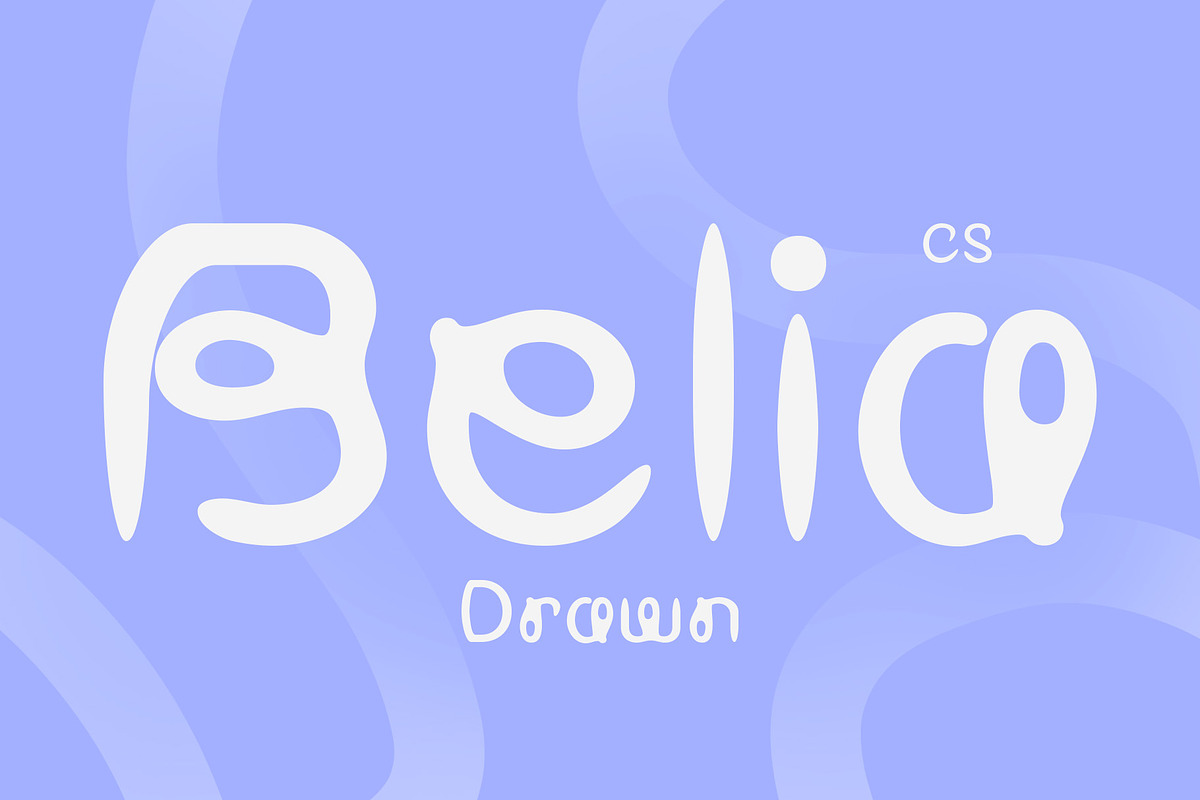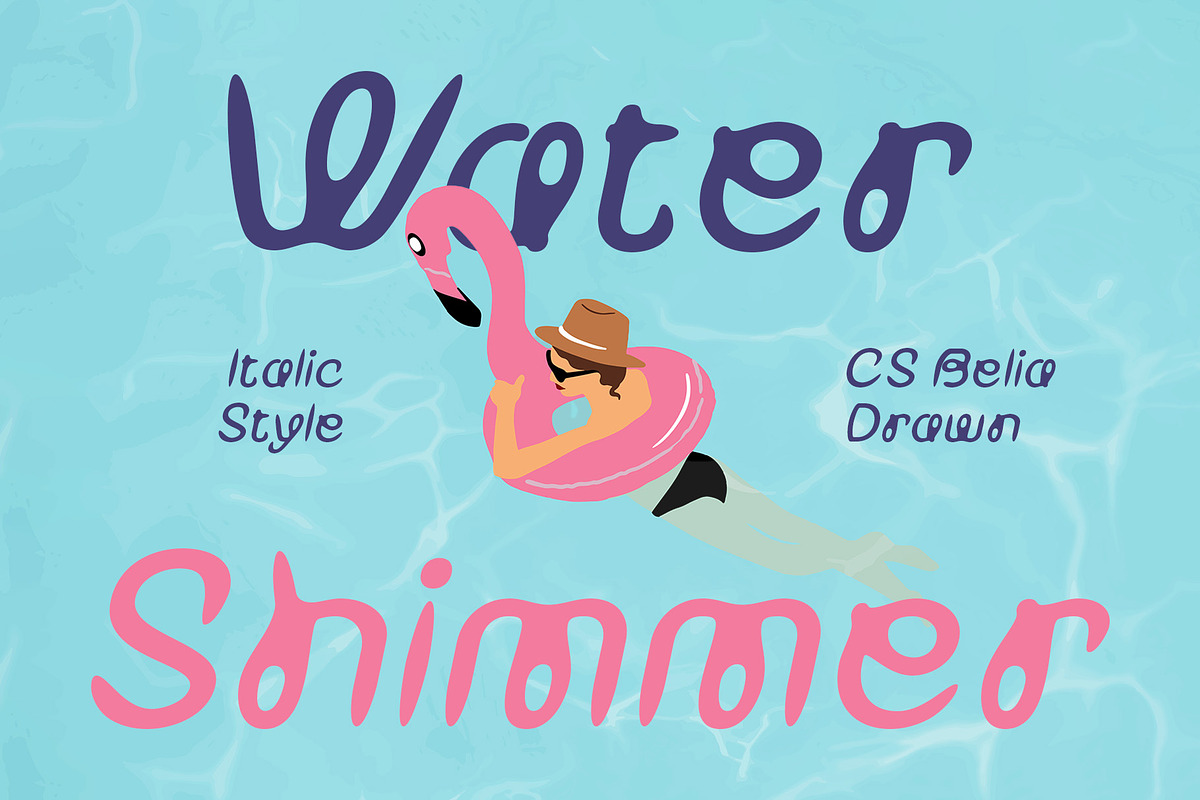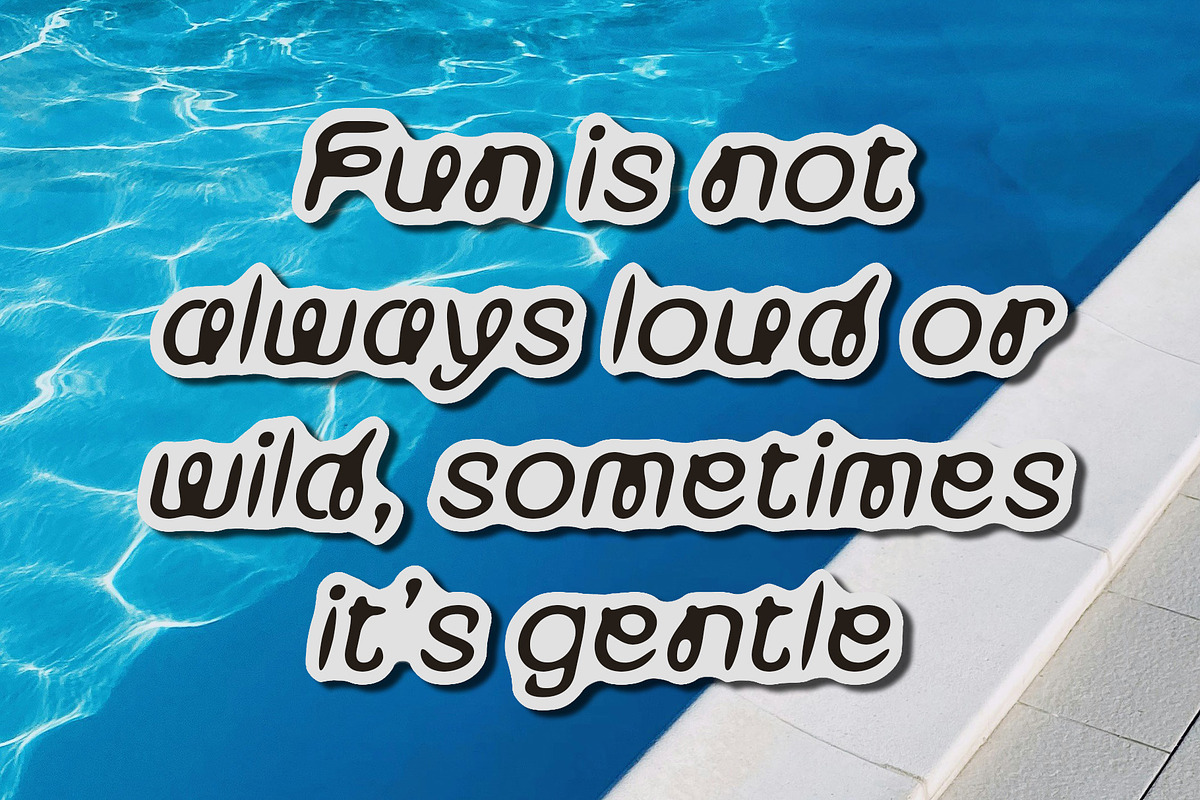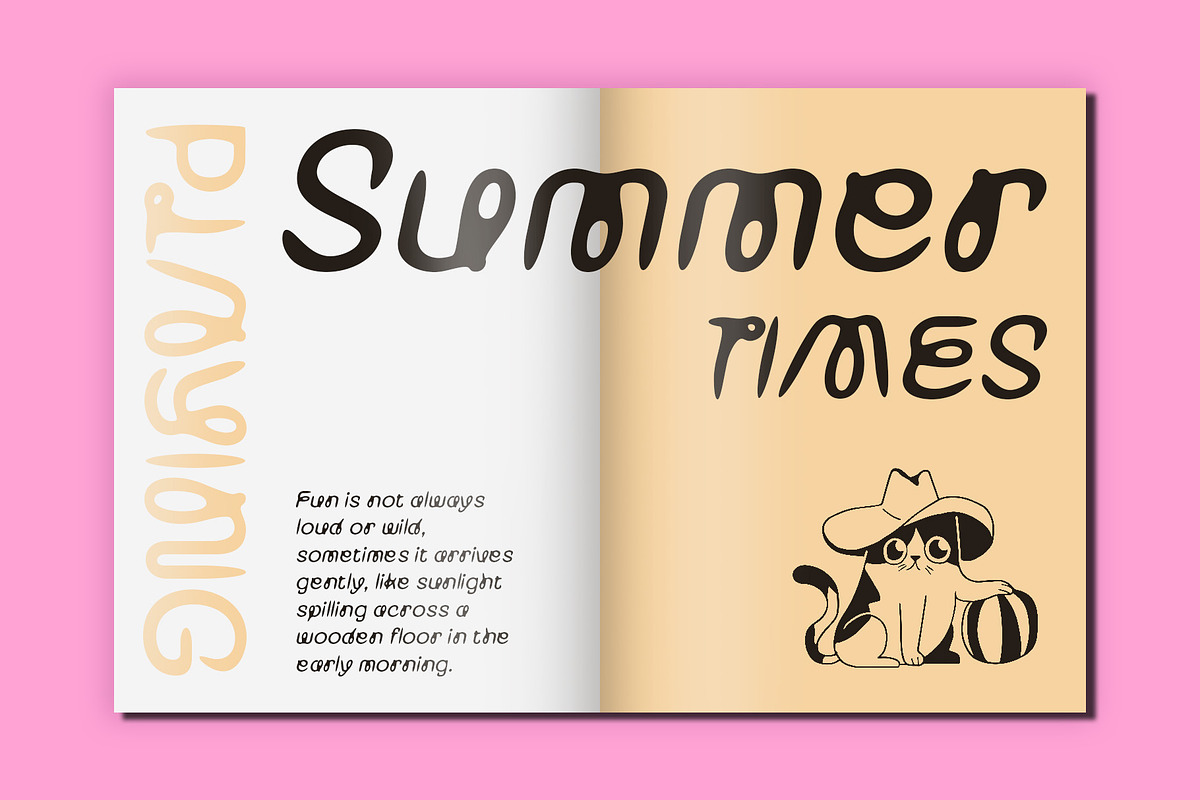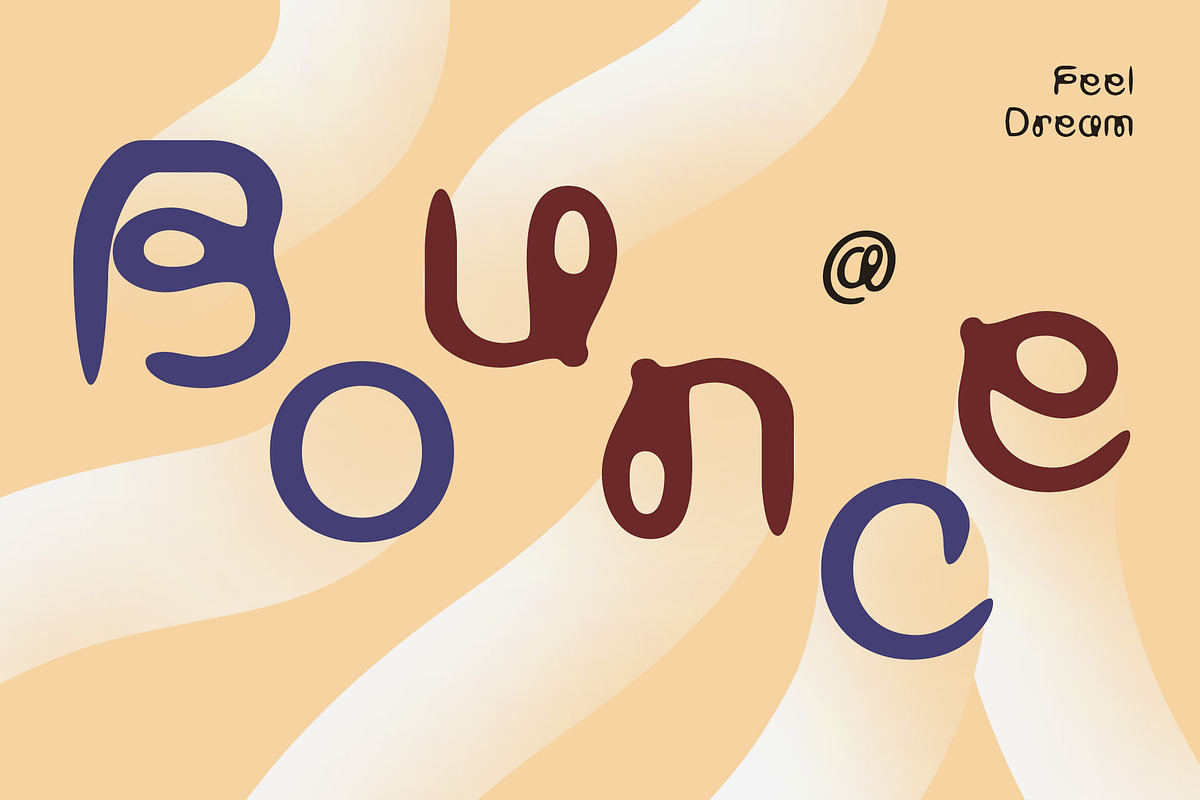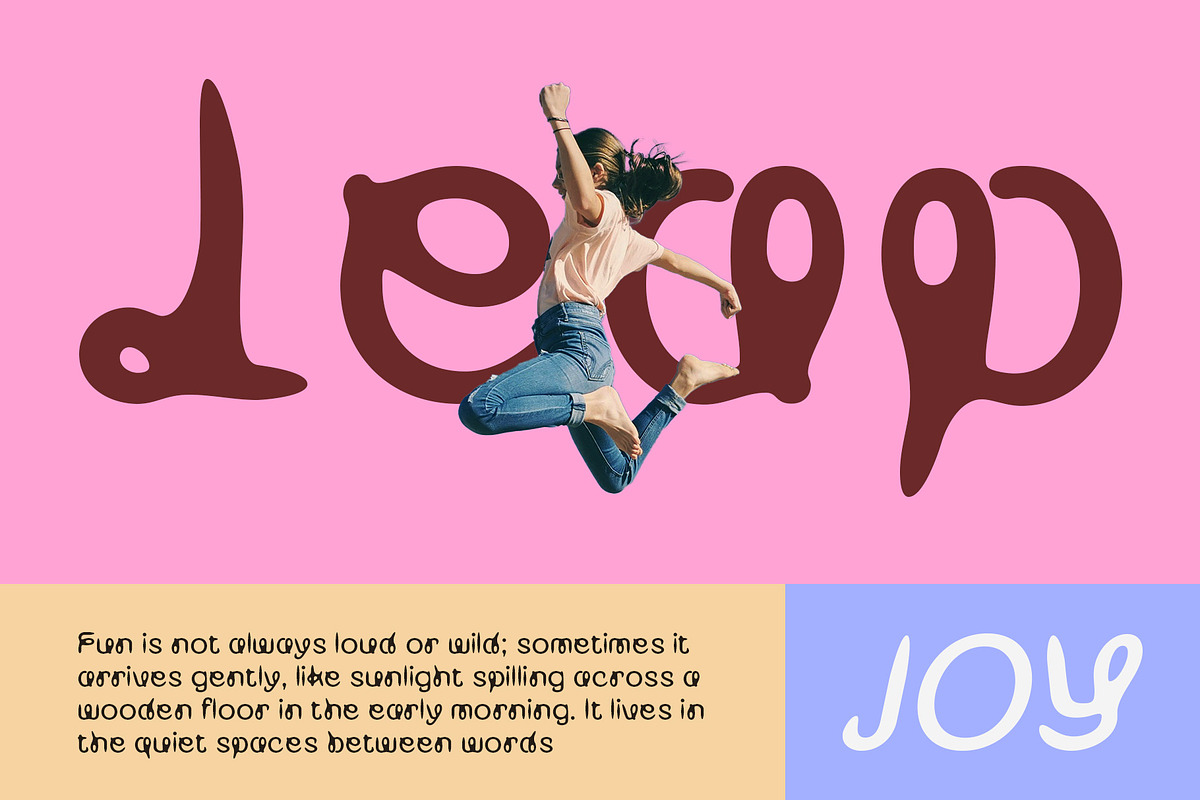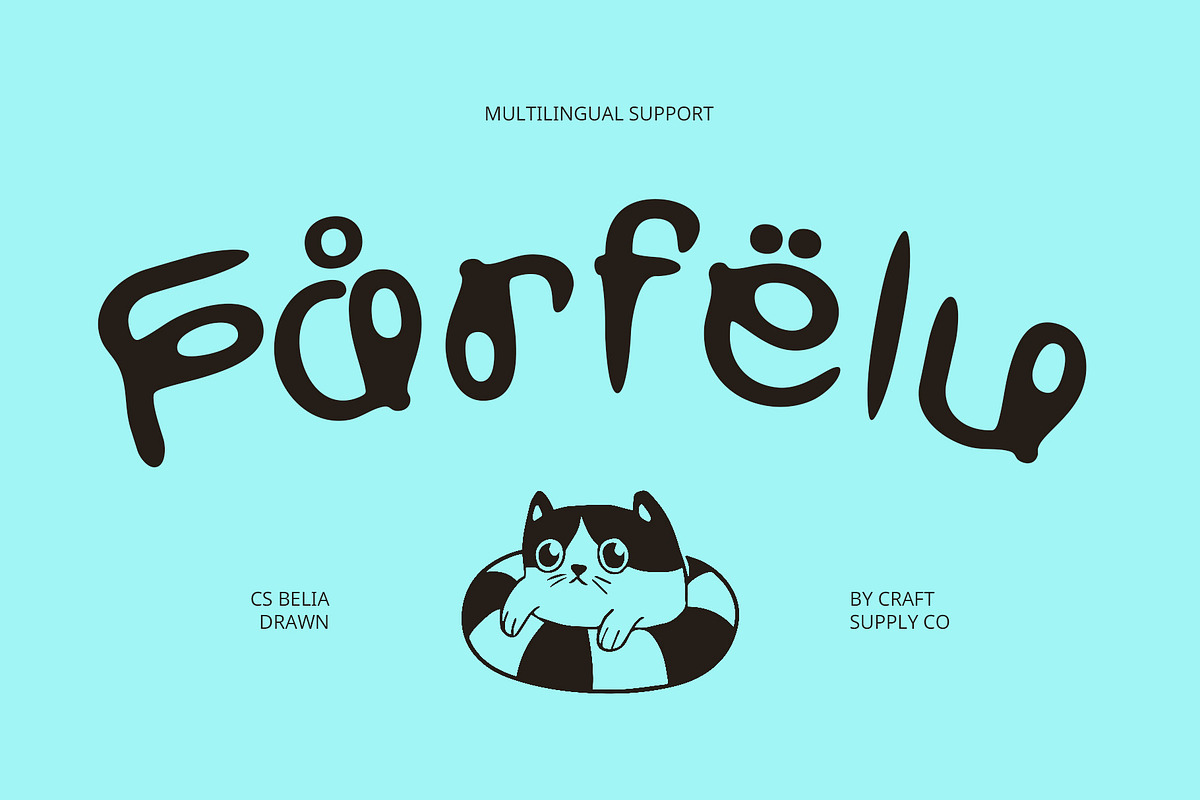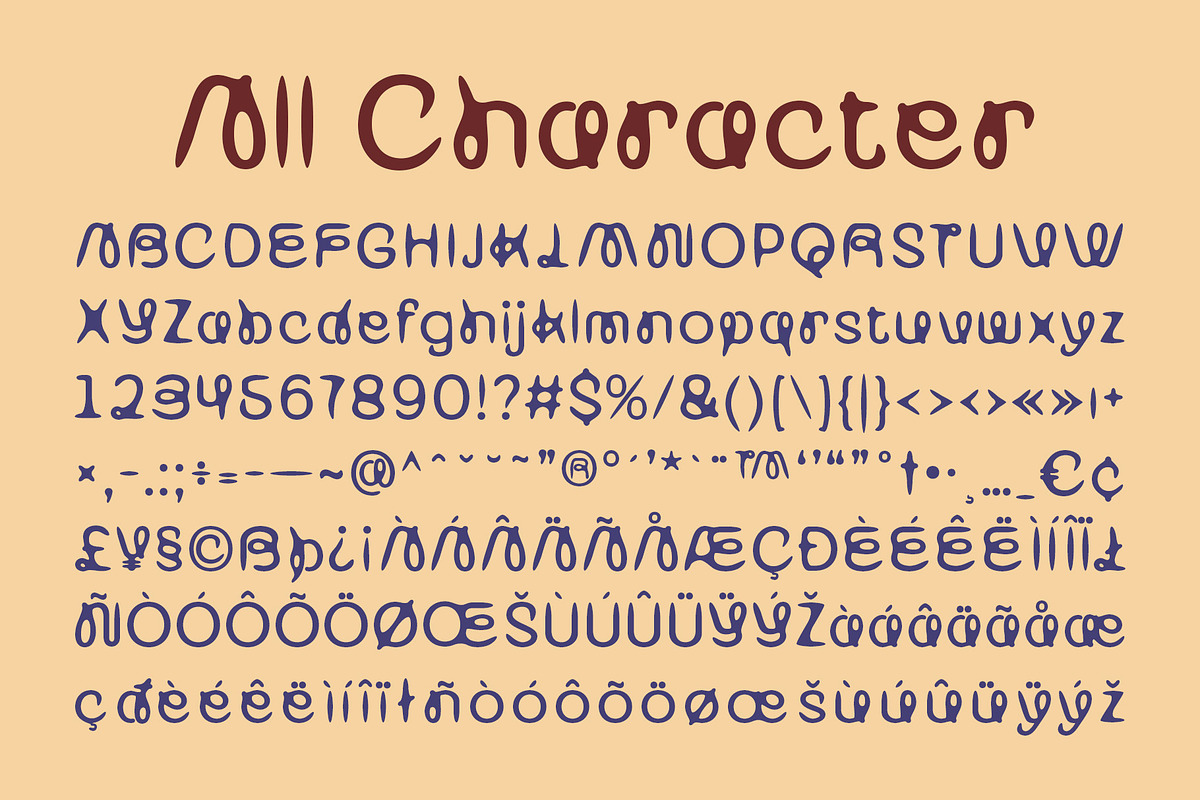
CS Belia Drawn
CS Belia Drawn – A Playful Fusion of Modern Funk and Handcrafted Charm
Curved and Swirling Shapes with Funky Appeal CS Belia Drawn is a modern sans-serif display font that stands out with its curvy, swirling letterforms and bold personality. Its shapes bring a fresh sense of motion and energy, offering a funky, cheerful impression that’s both cute and expressive. The font balances contemporary structure with a playful spirit, making it ideal for eye-catching, creative work.
Drawn Effect Adds Artistic Personality The drawn effect introduces a soft, organic texture that enhances its handcrafted aesthetic. This layer of imperfection and detail adds warmth and originality, giving the font a more personal, artisanal presence. It feels human and imaginative—perfect for projects that thrive on individuality and emotion.
Expressive and Youthful Visual Energy This artistic flair font radiates joy and character. Its dynamic curves and hand-drawn vibe create a striking identity that’s ideal for bold headlines, funky logos, and expressive display settings. Whether used in print or digital media, it brings liveliness and charm to any layout.
Perfect for Youthful and Creative Projects Designed for branding, packaging, posters, or music-related visuals that want to feel fun and original, this playful font is especially fitting for youth-oriented audiences and artistic themes. If you’re aiming to inject a sense of energy, creativity, and friendliness into your designs, this font delivers with flair and personality.